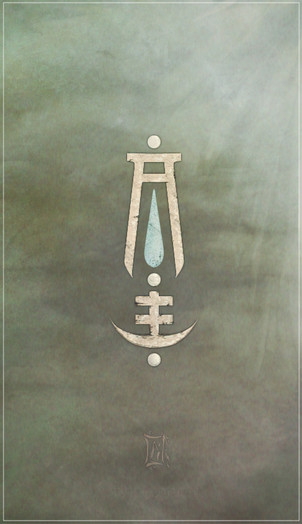
a fantasie sripct with elements in arabic/oriental style and no meaning (i hope). done with ink and a flat drawing pen.Related content
This is lovely. Its like elvish script with a little arabic